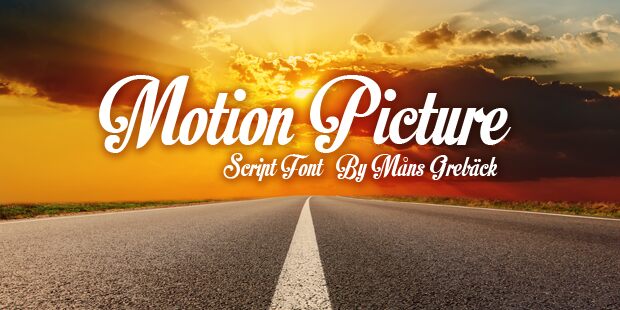
The Motion Picture font, designed by Måns Grebäck, exudes a captivating calligraphic elegance. This ornate script typeface boasts sweeping strokes and graceful flourishes, evoking a sense of timeless sophistication and cinematic grandeur. The intricate letterforms and seamless ligatures create a fluid, harmonious aesthetic that immediately commands attention and imparts a touch of artistic flair to any design.
This versatile font excels in a variety of applications, from elegant event invitations and premium brand identities to eye-catching headlines and impactful typographic compositions. Its distinctive calligraphic style lends itself particularly well to projects that seek to convey a sense of refinement, luxury, or a touch of the dramatic, making it a compelling choice for creative professionals in the fields of fashion, entertainment, or luxury goods.